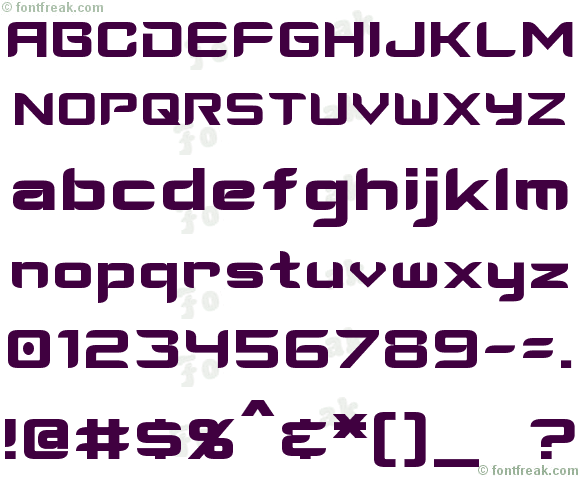
Cyberverse
About Cyberverse
Cyberverse, designed by Neale Davidson in 2011, is a striking display font that effortlessly combines modern aesthetics with a futuristic flair. This sans-serif typeface features bold strokes and a geometric structure, which gives it a robust yet approachable appearance. The even spacing between characters enhances readability while maintaining a visually captivating layout. With its uniform stroke weight and minimal contrast, Cyberverse is ideal for a variety of design purposes while retaining a sleek, contemporary look.
This versatile font is well-suited for numerous applications. It shines in technology-themed designs, making it an excellent choice for website headers, promotional materials for tech startups, and video game branding. Additionally, its bold and unique character makes it perfect for movie posters, especially in the science fiction genre, where it can convey a sense of adventure and innovation. Small business owners can utilize Cyberverse for eye-catching signage and marketing materials, while content creators may find it beneficial for social media graphics and digital publications.
The target audience for Cyberverse includes graphic designers looking for a distinctive typeface to elevate their projects, small business owners seeking to make a memorable impression, and content creators who desire a modern touch in their visual communications. The font's unique style and versatility make it an essential addition to any designer's toolkit.
What sets the Cyberverse font apart is its blend of boldness and clarity, making it stand out in both print and digital mediums. With the Cyberverse font free download, you can easily incorporate this eye-catching typeface into your next project, ensuring that your designs are both modern and memorable.